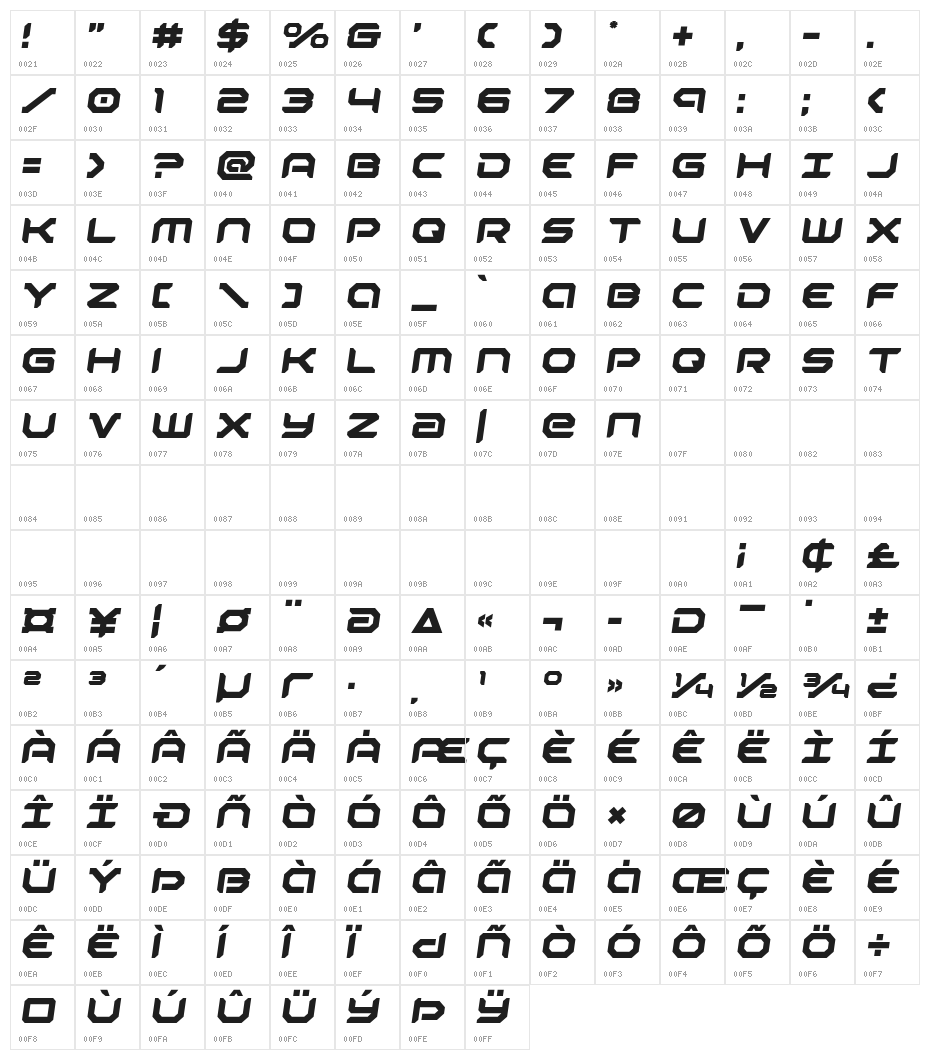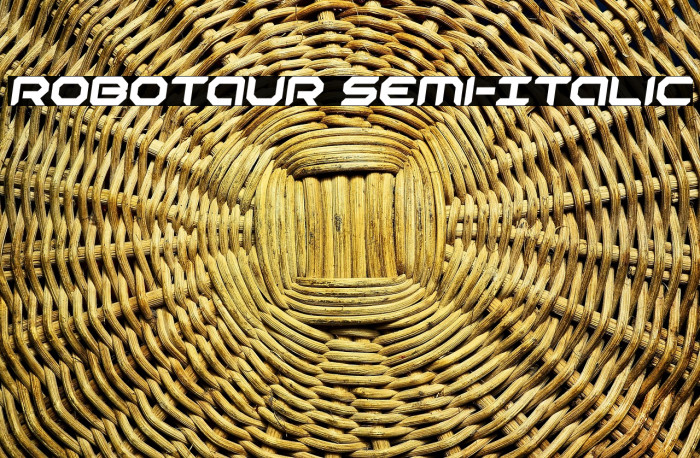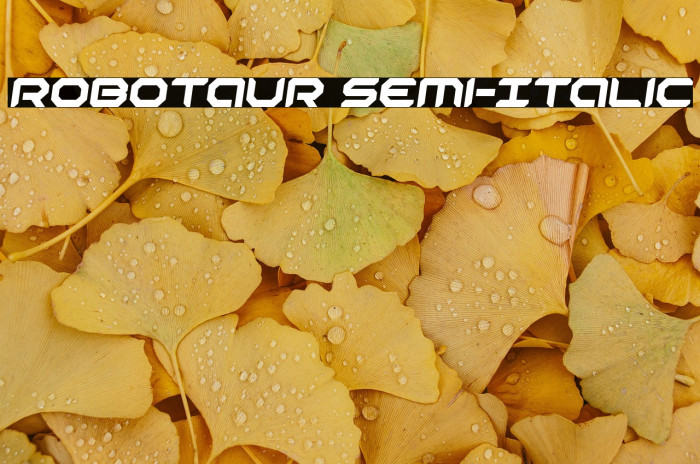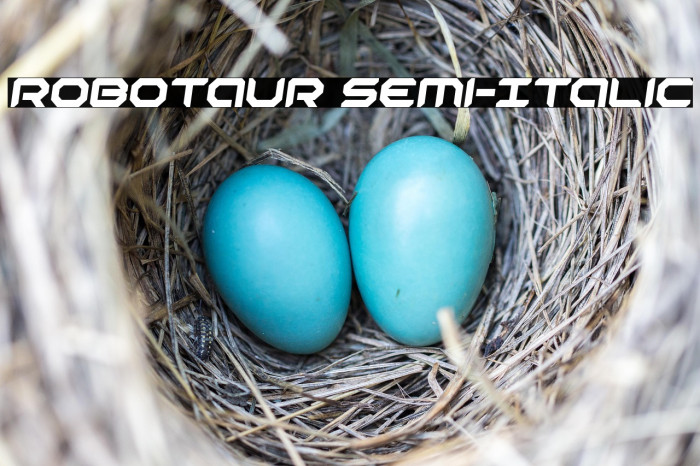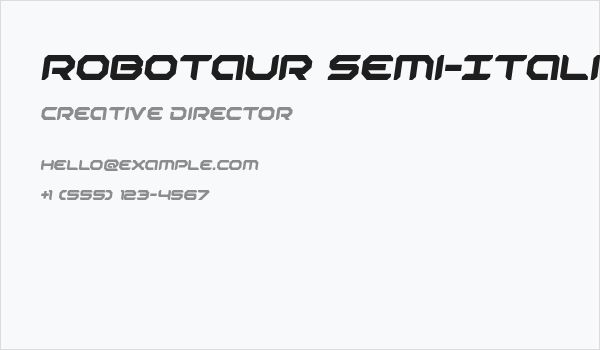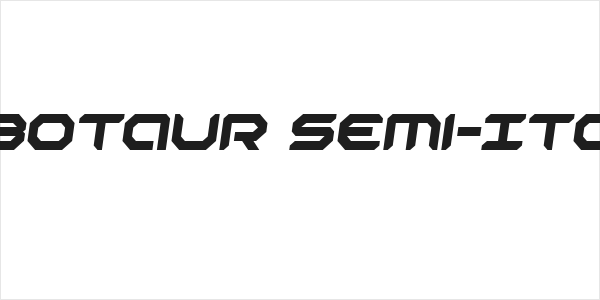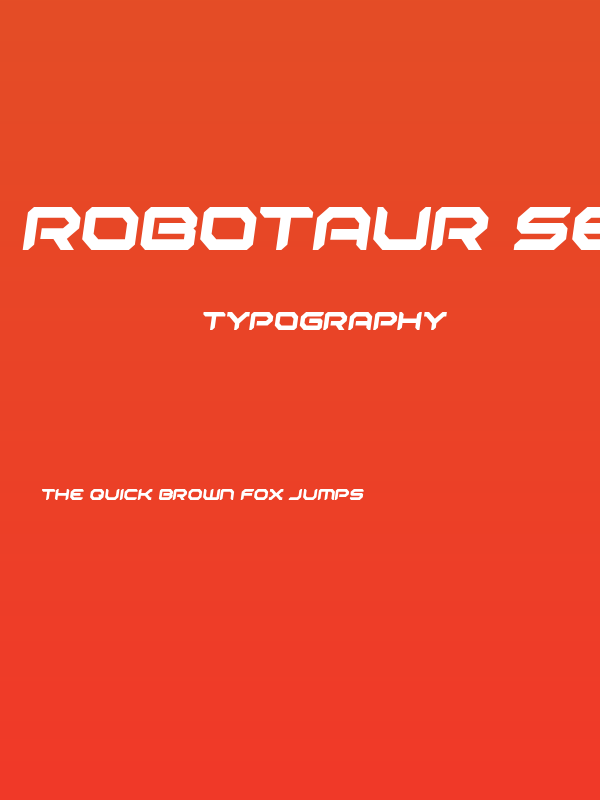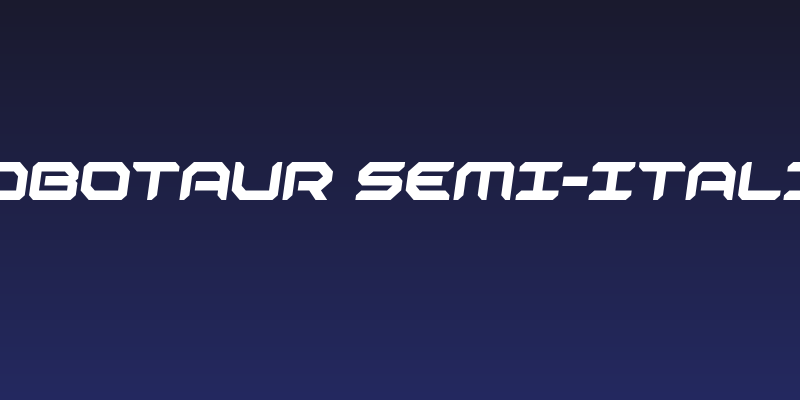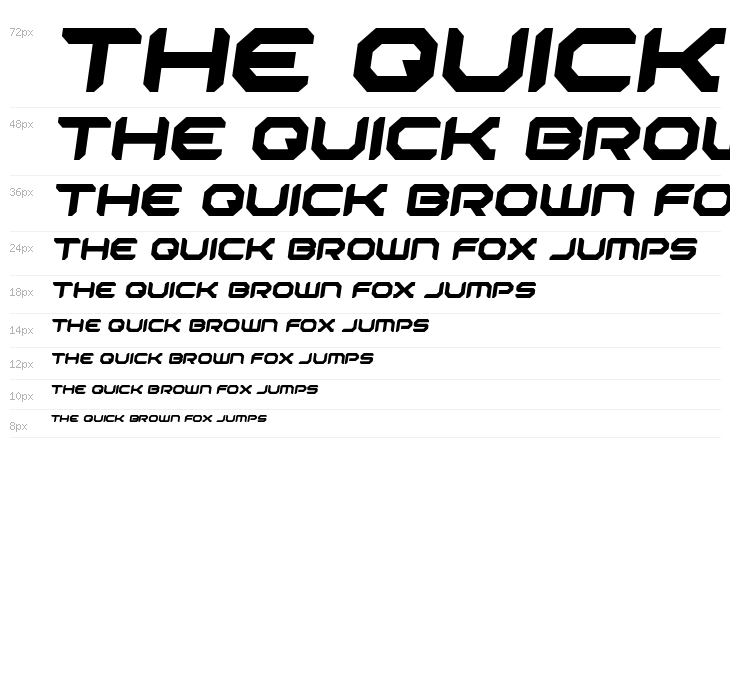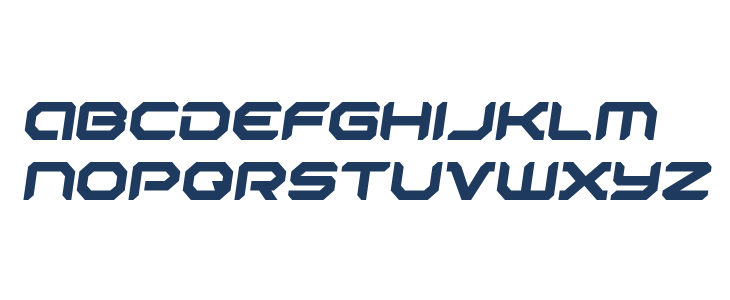
Robotaur Semi-Italic Font
Robotaur Semi-Italic Description
This font features a futuristic and angular design, characterized by its bold and geometric letterforms. The semi-italic style gives it a dynamic and forward-leaning appearance, enhancing its modern and tech-inspired aesthetic. Each character is crafted with precision, showcasing sharp edges and a consistent stroke width that maintains readability while adding a unique flair. The numbers and special characters follow the same design principles, ensuring a cohesive look across all glyphs. This font is ideal for projects that require a contemporary and edgy feel.
Proposed ProjectsIdeal for tech branding, video game titles, sci-fi posters, and modern digital interfaces.